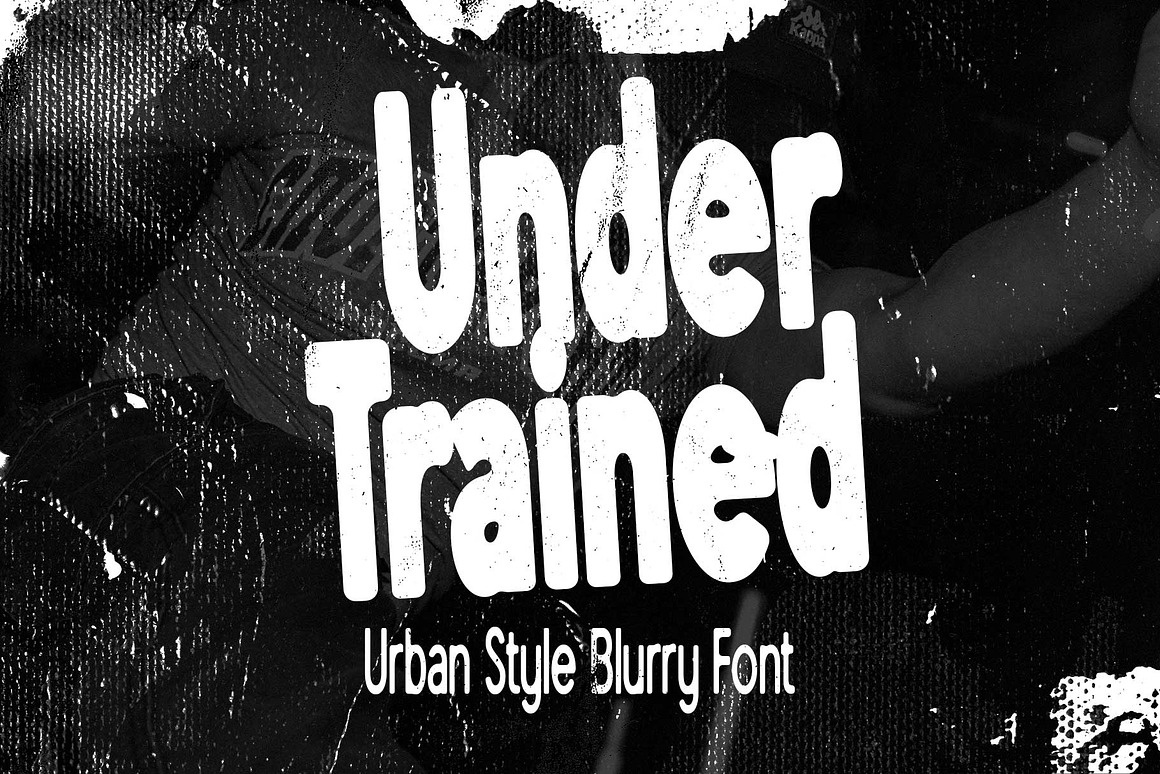
About Under Trained
Under Trained is a bold urban display sans serif with a raw blurry aesthetic inspired by underground culture, distorted posters, and chaotic street visuals. The combination of tall condensed shapes and textured blur effects creates a loud, gritty, and modern appearance. Available in Regular and Bold styles, this font is made to stand out in strong visual compositions.